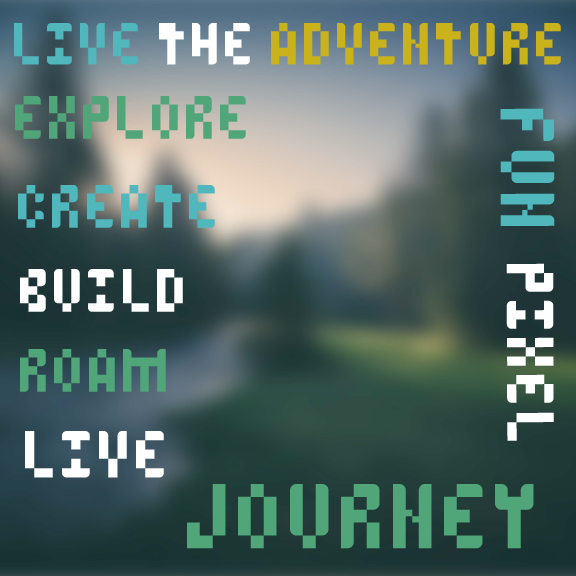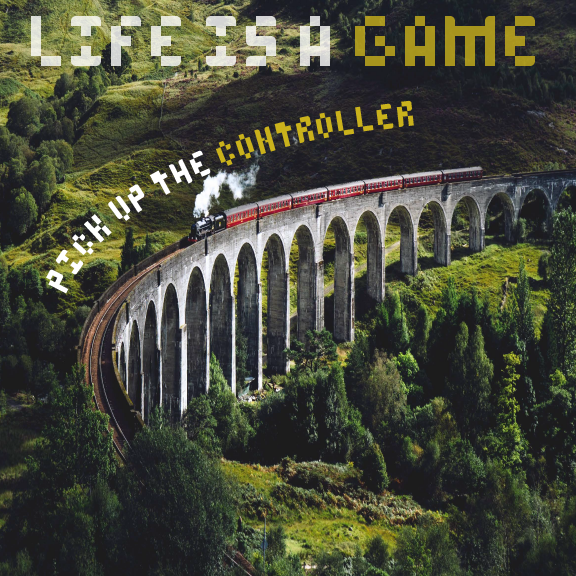
• Kawaii Pixels is a sans serif font that is meant to resemble pixels from retro video games. I took inspiration from Minecraft and retro video games. It would be great to use for titles, cards, and anything you want to add a cute and quirky flavor to.